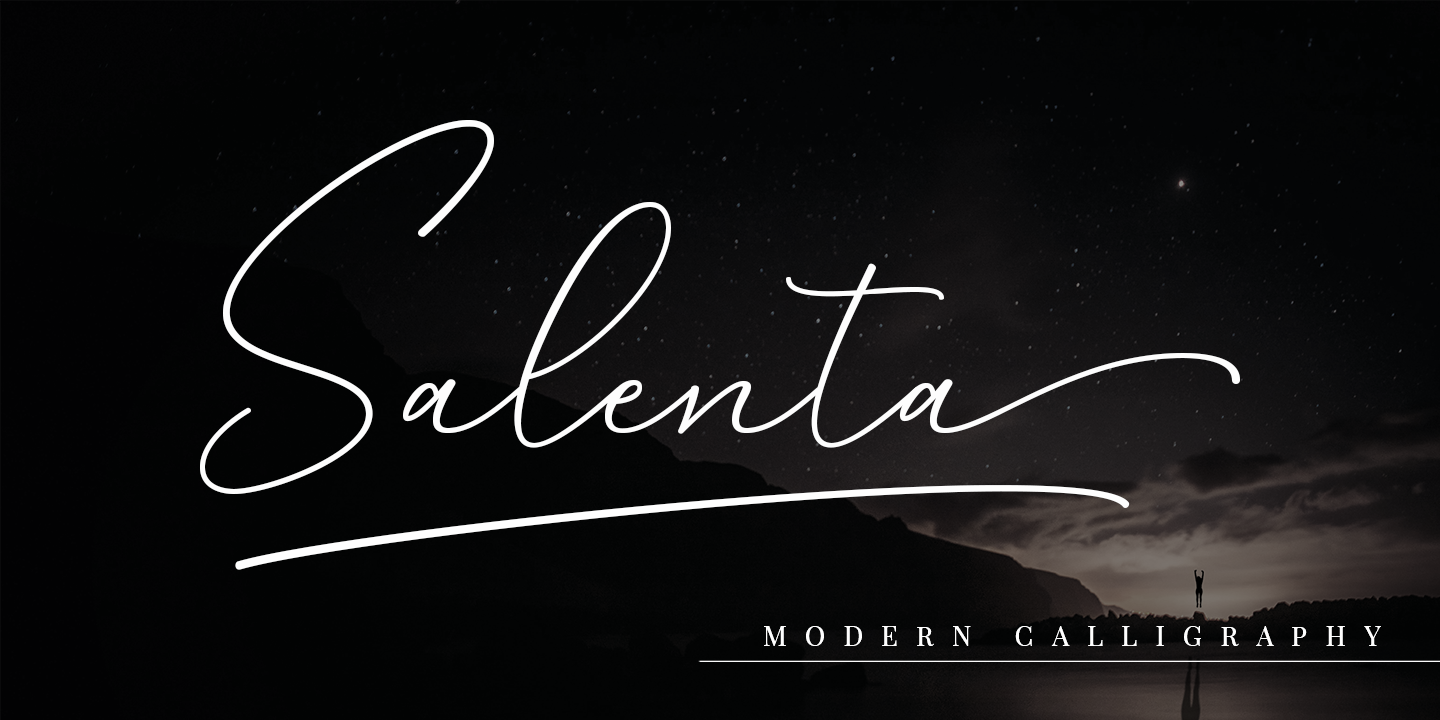
The Salenta Font Free Download is an elegant and flowing script typeface, making it an excellent choice for designs that aim to convey sophistication, personal charm, and a handcrafted touch. This beautiful font is perfectly suited for wedding invitations, luxury branding, photography watermarks, fashion editorials, boutique signage, and personalized stationery. Imagine it adding a romantic flourish to an engagement announcement, providing a refined signature for a high-end beauty product, or lending an air of bespoke elegance to an artisan's portfolio. Its graceful curves and natural connections ensure your message is delivered with warmth and an undeniable sense of refined artistry.
What makes Salenta Font truly exciting is its ability to instantly infuse designs with a sense of bespoke quality and human artistry. It's not just a script font; it embodies an organic flow and a delicate precision that makes it incredibly appealing. The beautiful variations in stroke thickness and the effortless connections between letters mimic genuine calligraphy, adding a personal and luxurious feel to any design. Designers will appreciate how easily it brings a sophisticated yet approachable touch to any project, making it ideal for designs that need to feel authentic, elegant, and visually enchanting.
The Salenta Font family typically focuses on its singular, expressive style, as its strength lies in its authentic script appearance. While you might primarily find a Regular option, its versatility comes from its inherent design and often includes a rich array of swashes, alternates, and ligatures. These additional features allow for extensive customization, enabling designers to create unique and flowing typographic compositions that truly mimic natural handwriting with a refined flair. These focused design elements ensure that the Salenta Font Free Download provides ample creative opportunities to craft genuinely personal and visually captivating designs.